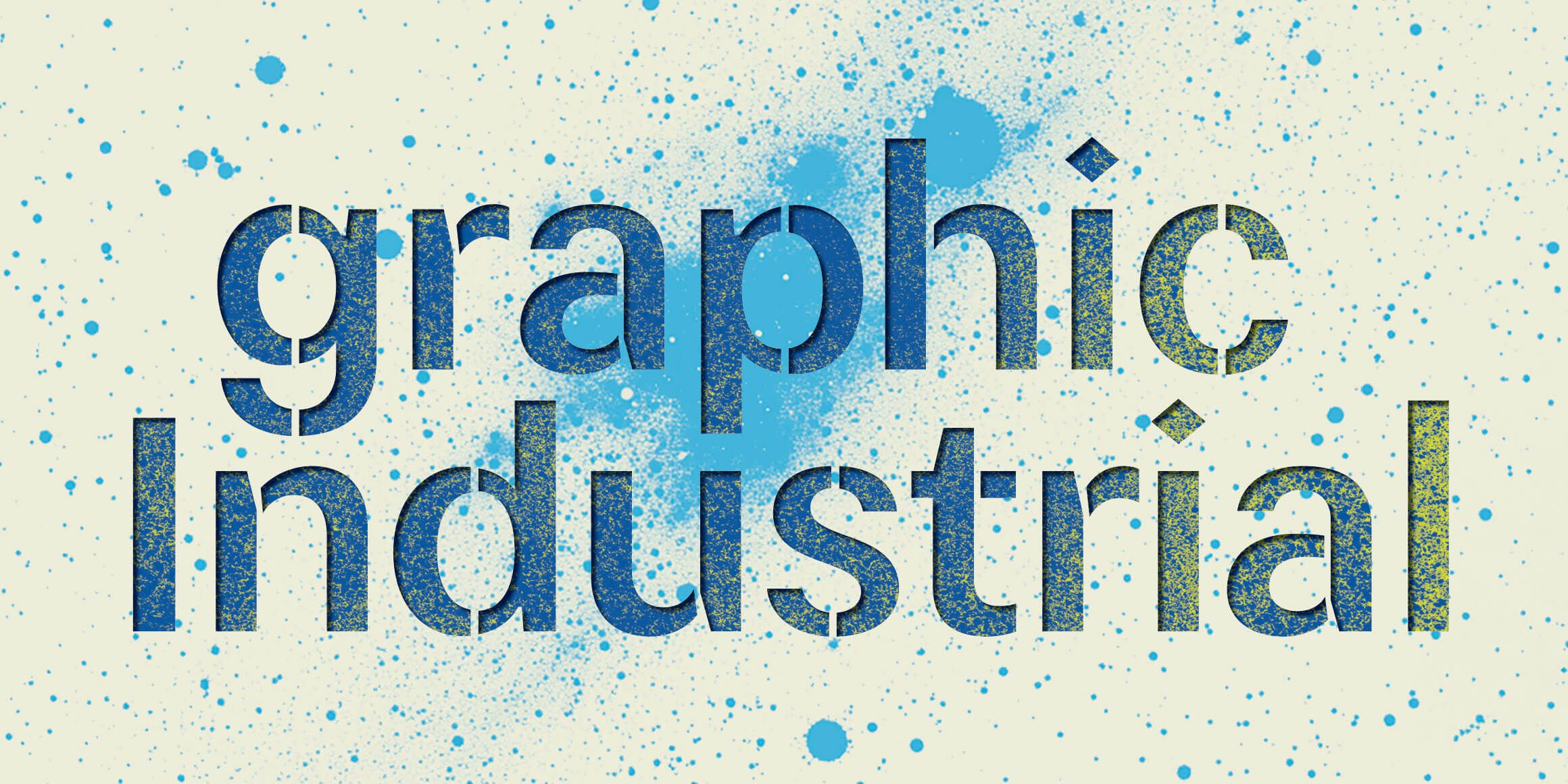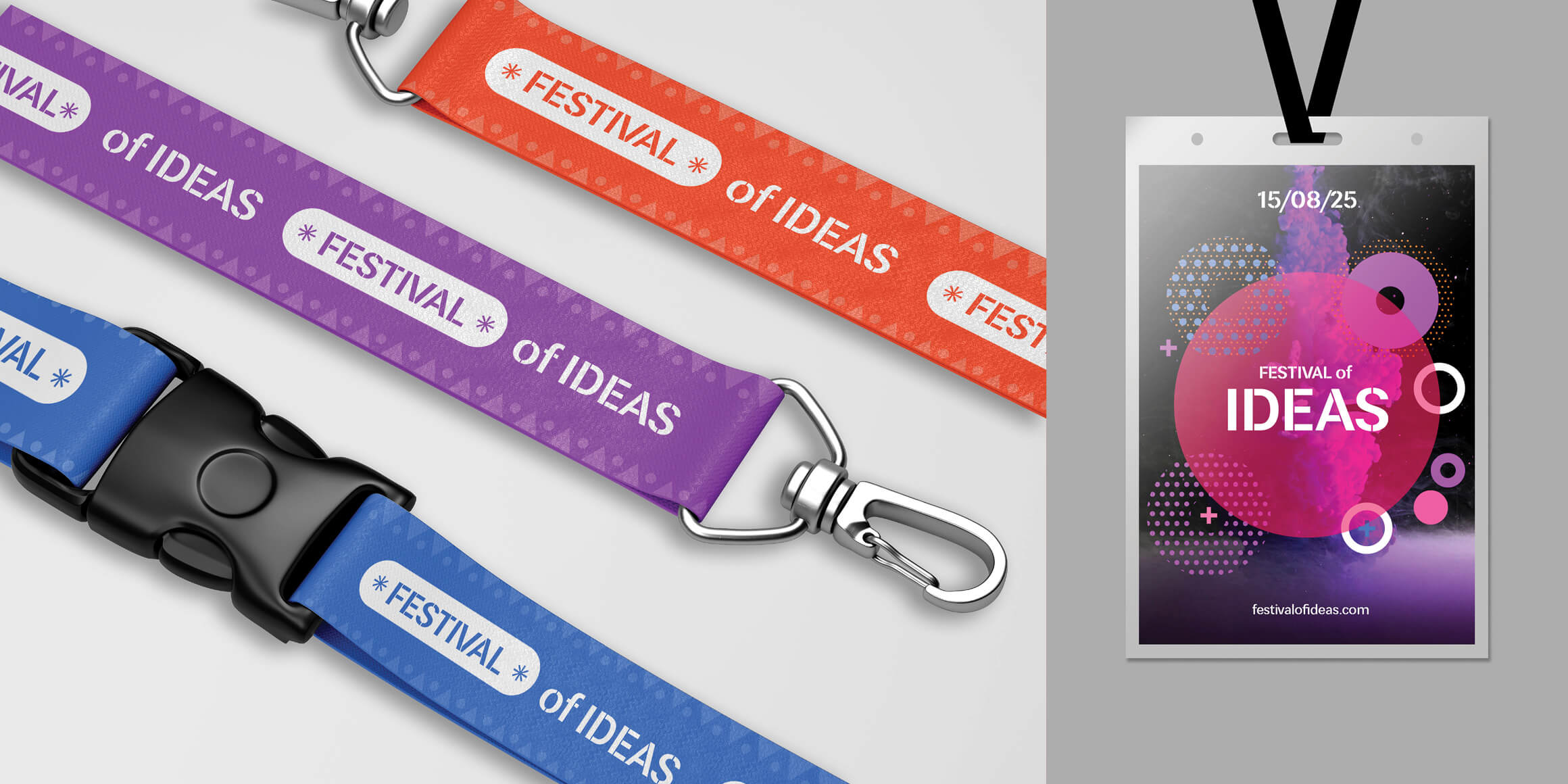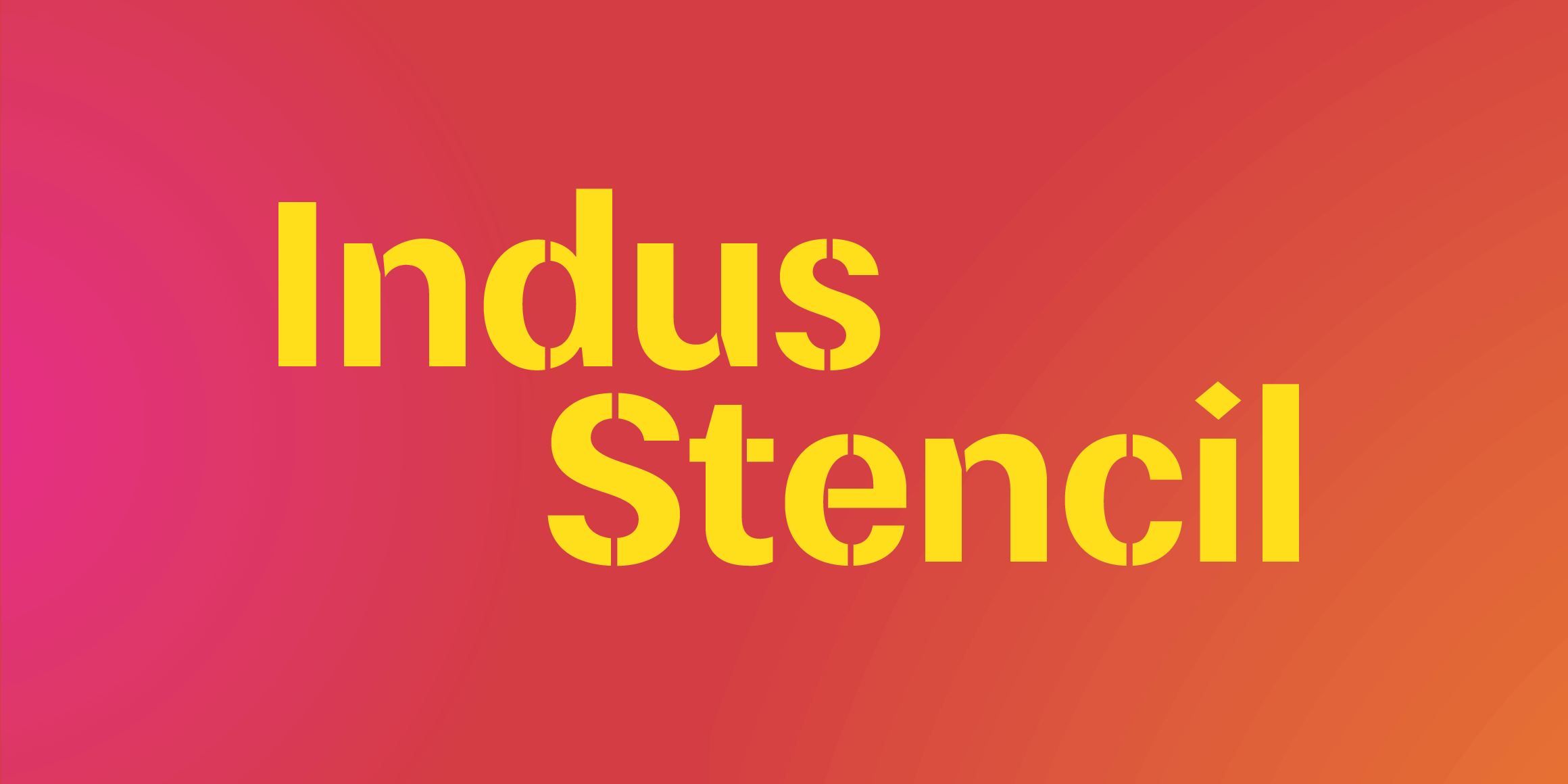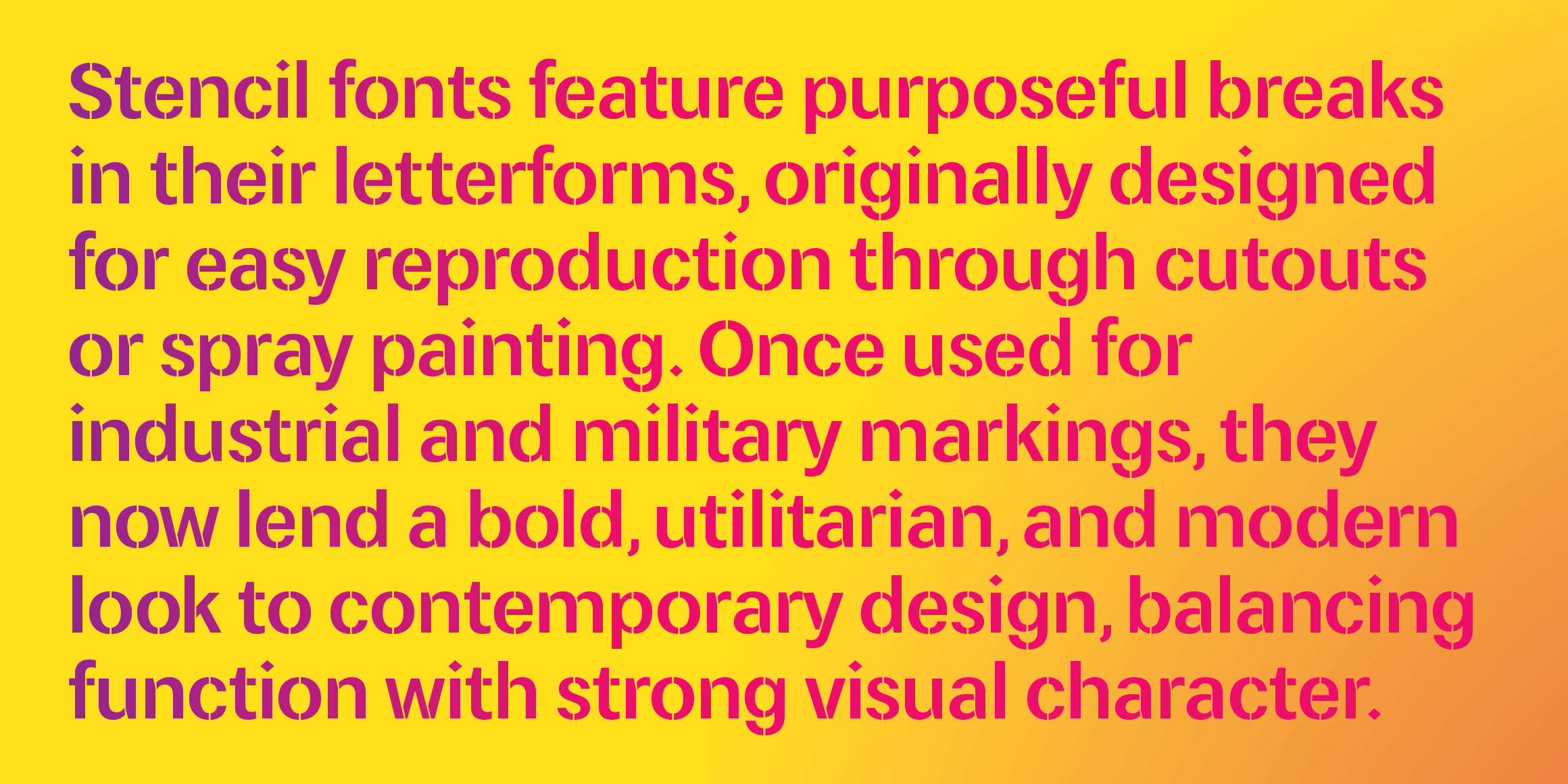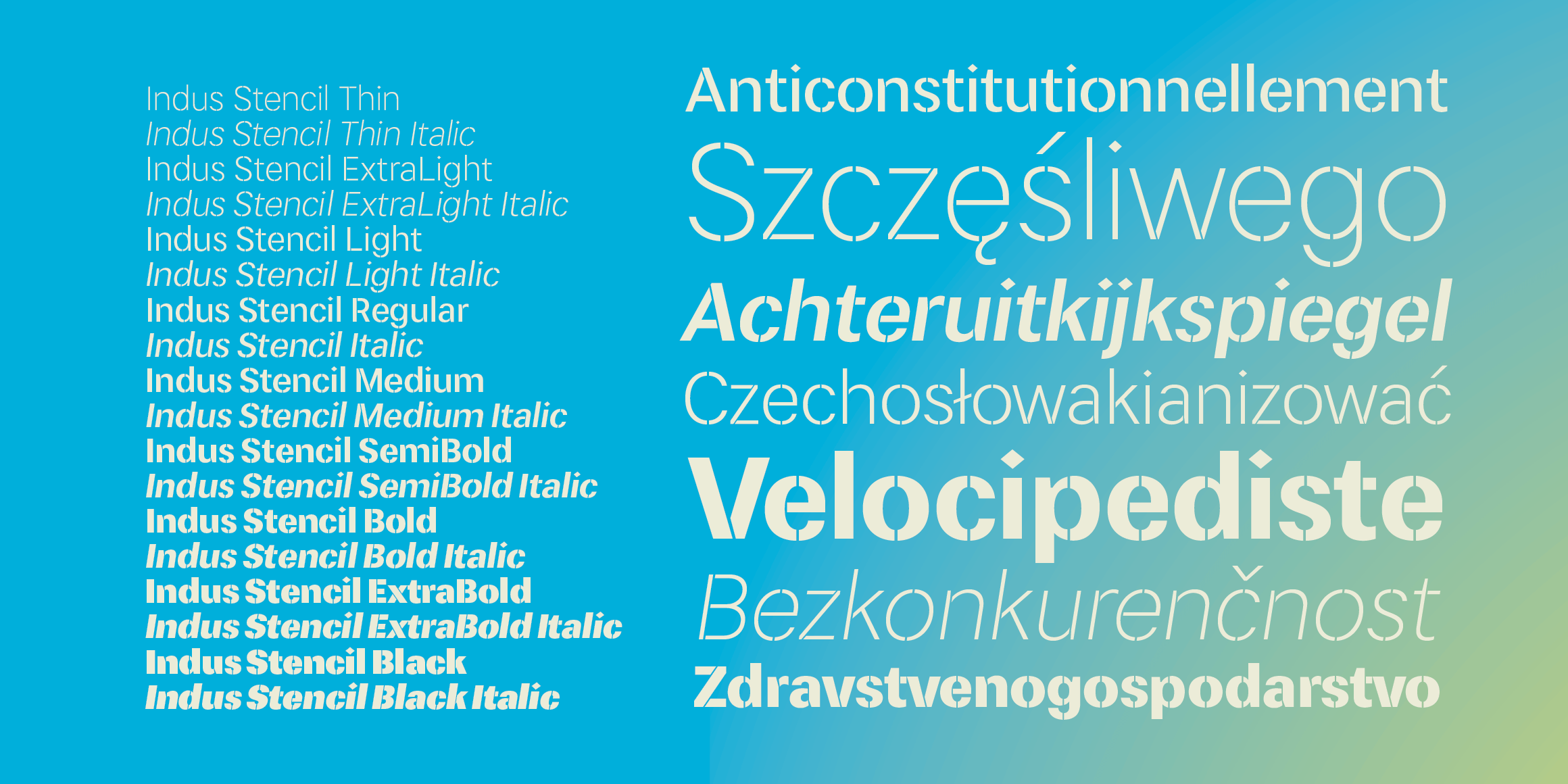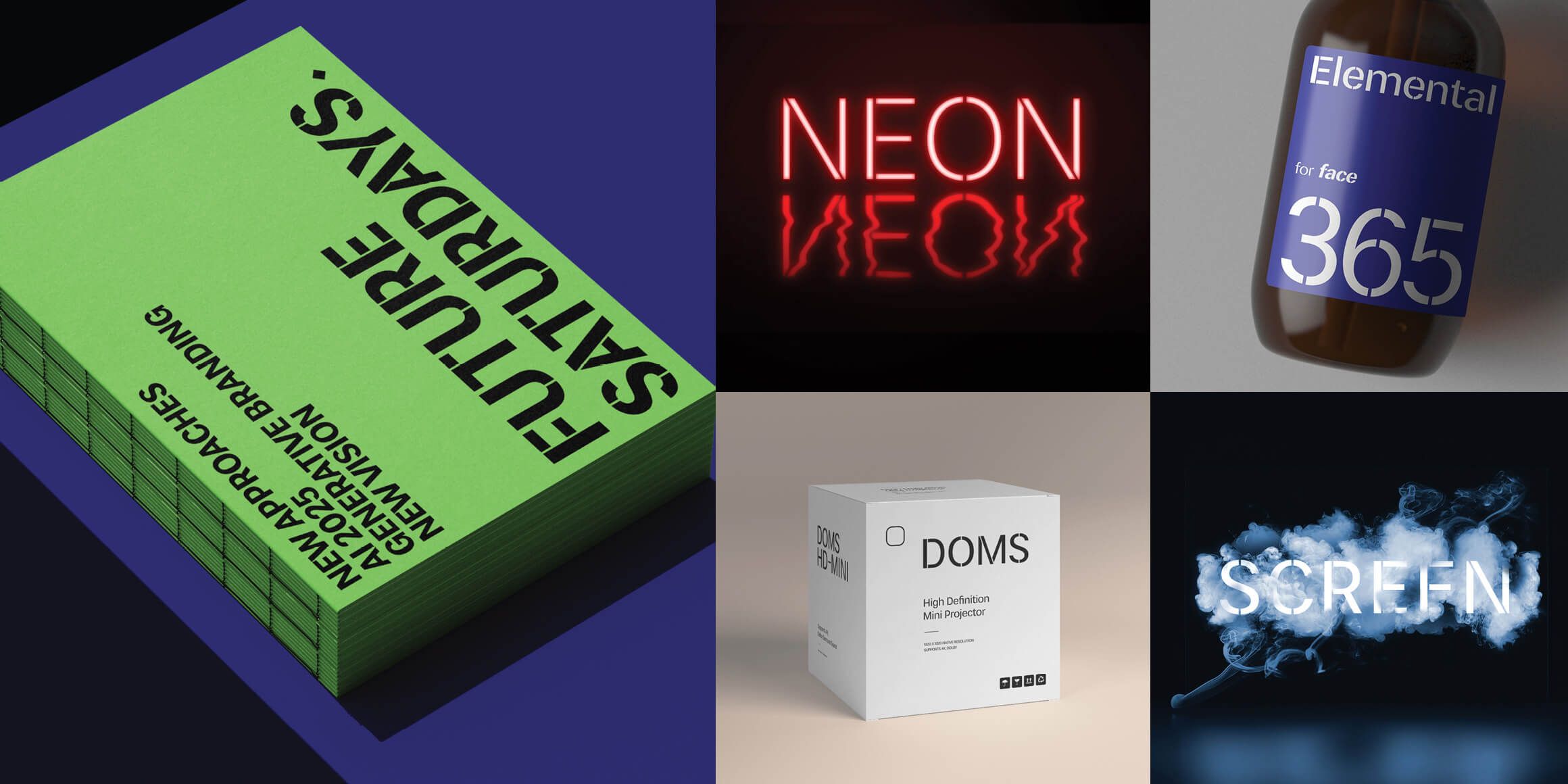
Indus Stencil
Indus Stencil is the companion stencil style to the Indus Grotesque family. Inspired by industrial lettering, this stencil variant introduces a dynamic and playful dimension to the overall family aesthetic.